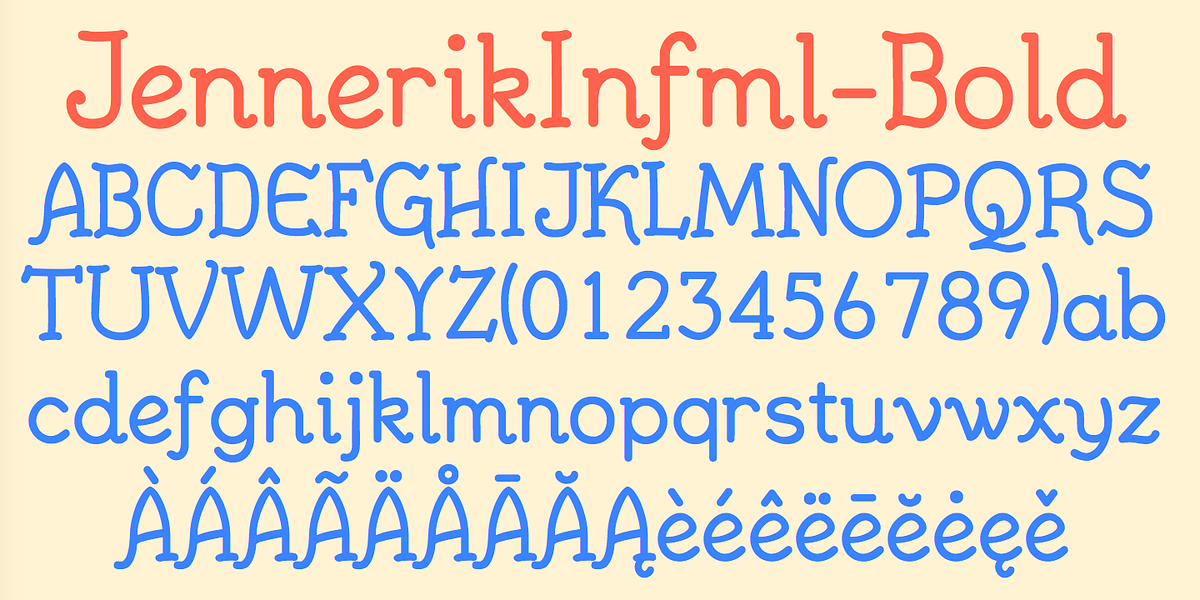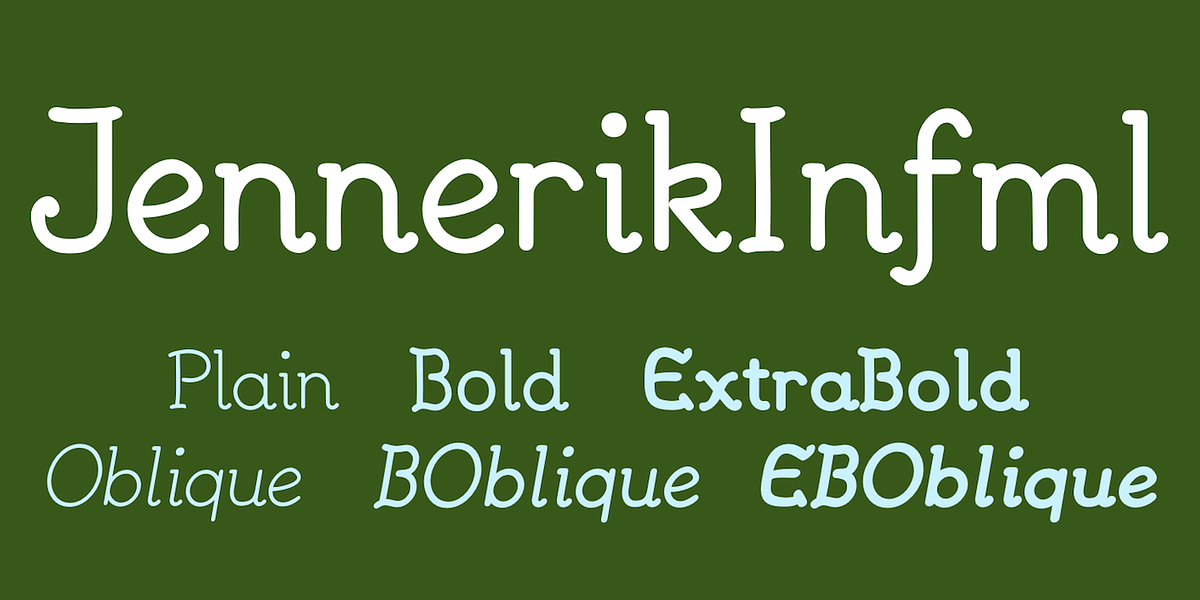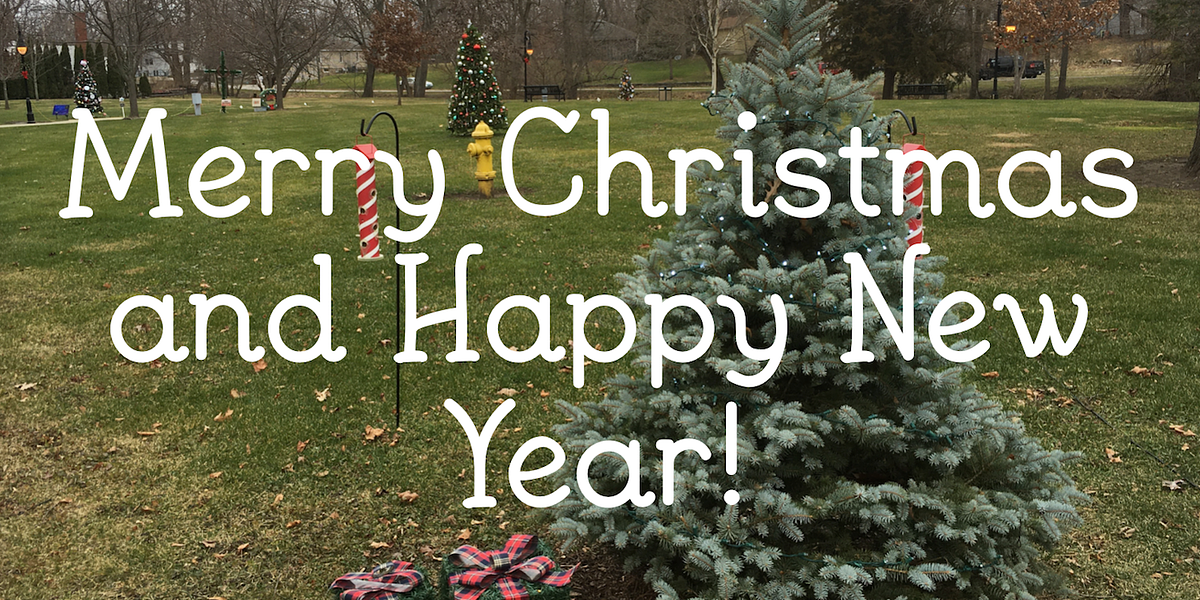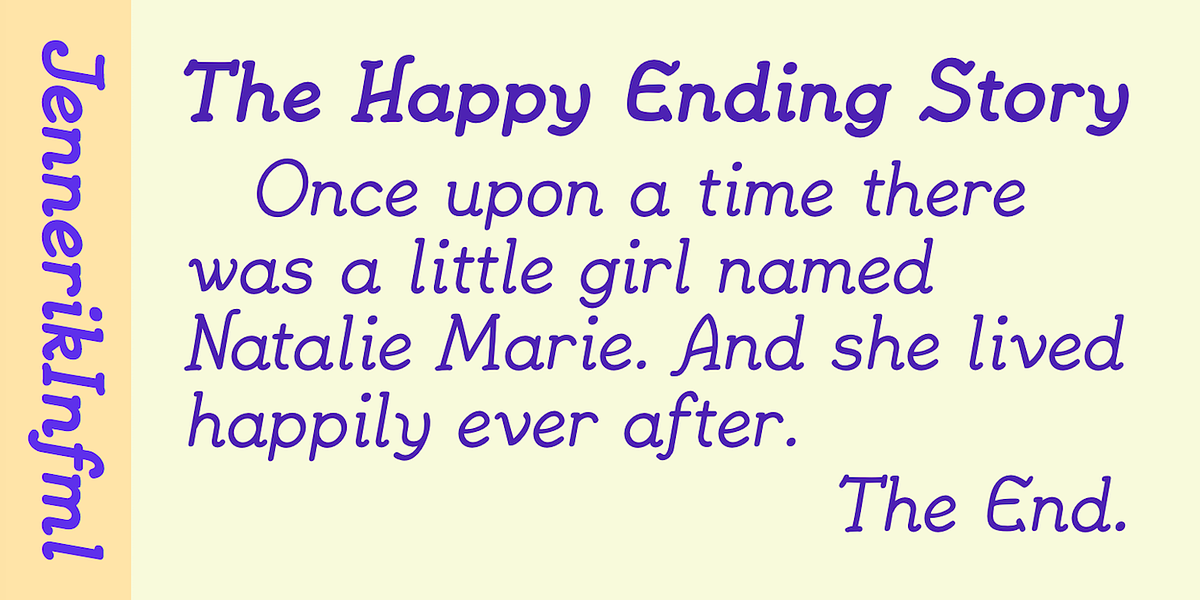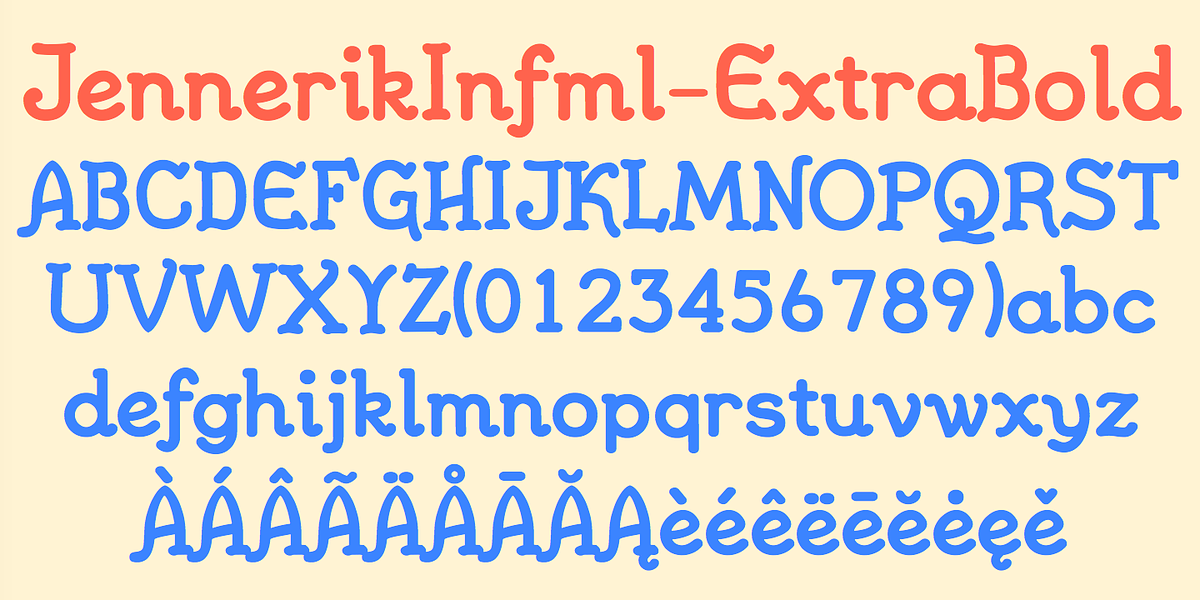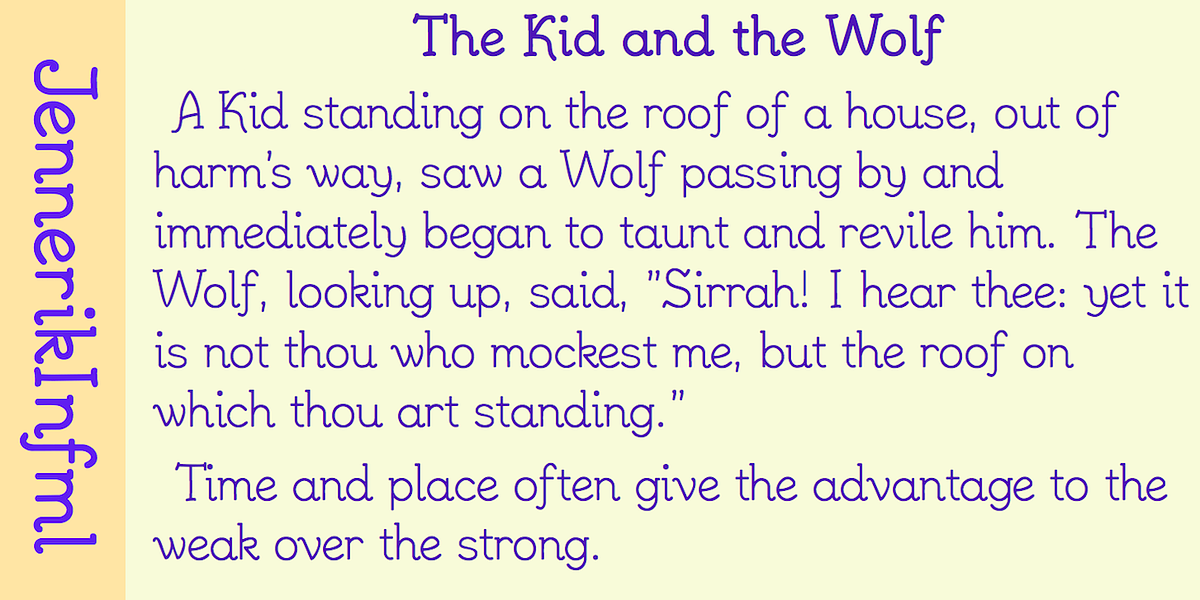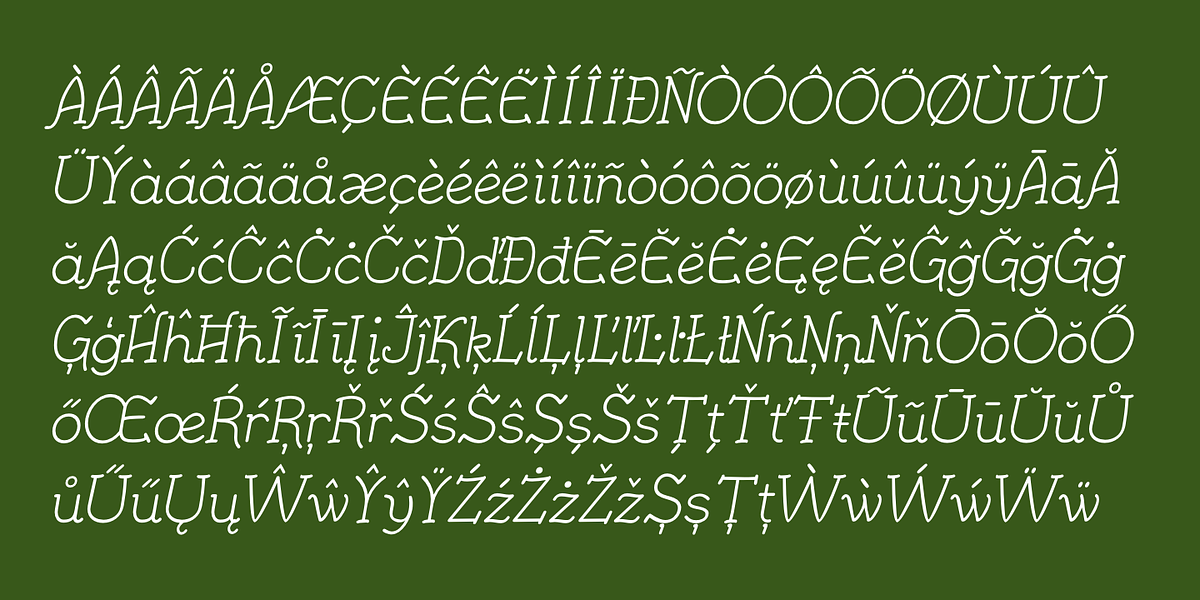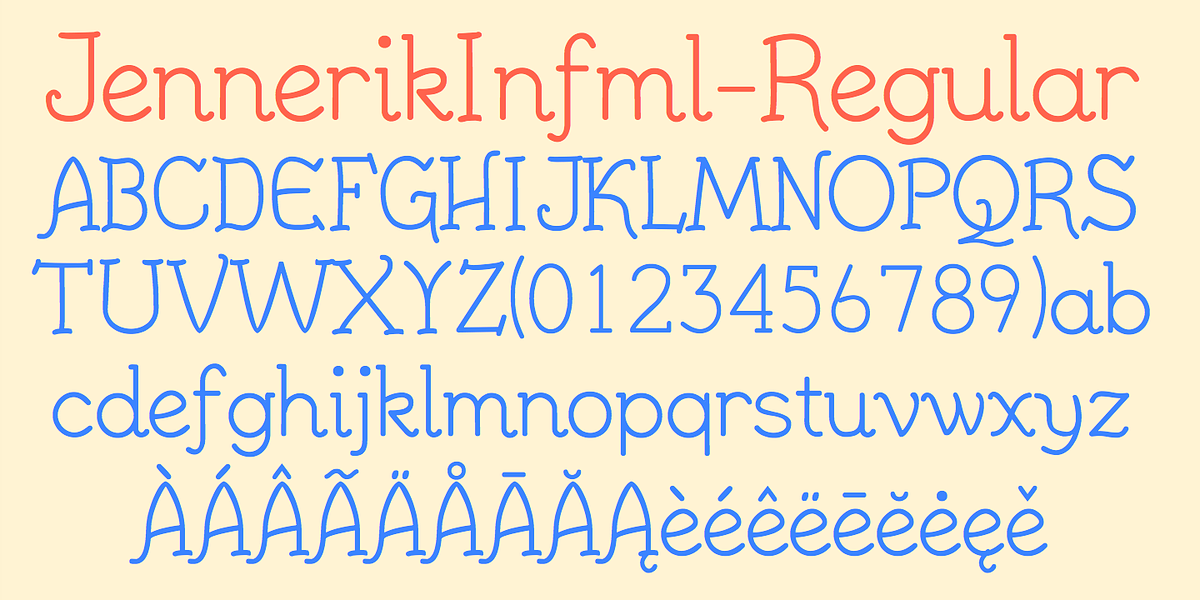
JennerikInfml
JennerikInfml is a friendly and casual typeface family designed to resemble neat hand printing. Originally published in 1992 as upright letters without a slant, the font's lowercase letters were designed as italics. A revision in 2020 introduced slanted styles. The font is well-suited for branding and display purposes due to its approachable aesthetic.